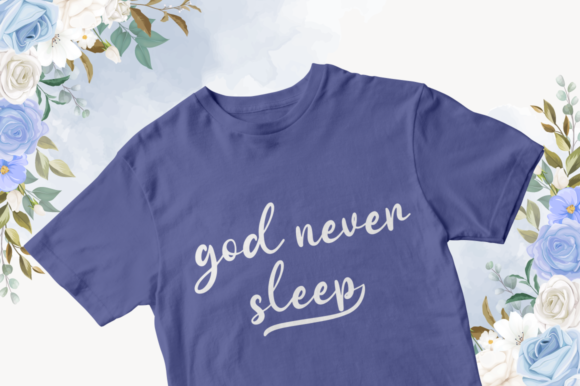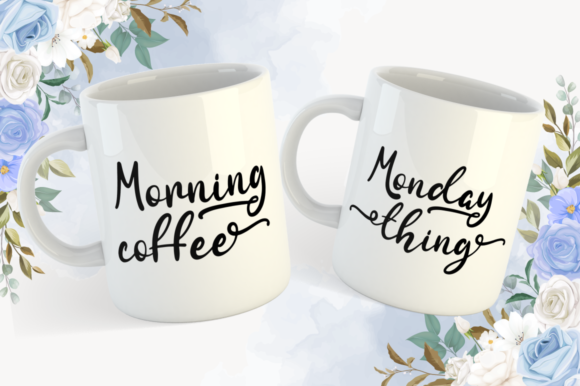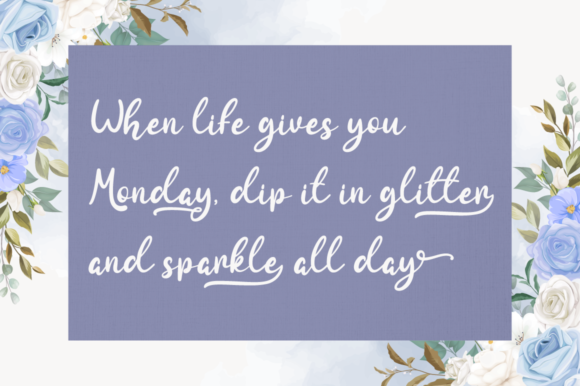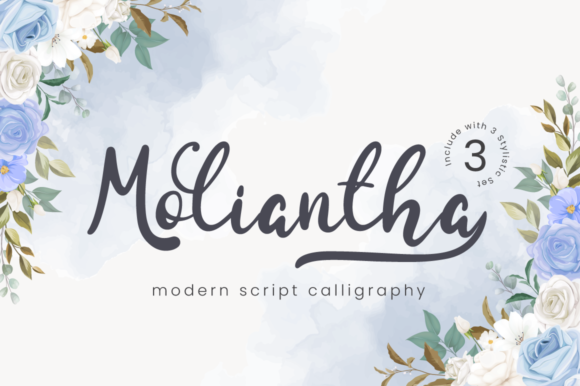
Introduction to Moliantha Font
Moliantha is a delicate and incredibly distinct handwritten font with 3 stylistic sets.
Fall in love with its incredibly versatile style and use it to create romantic designs .